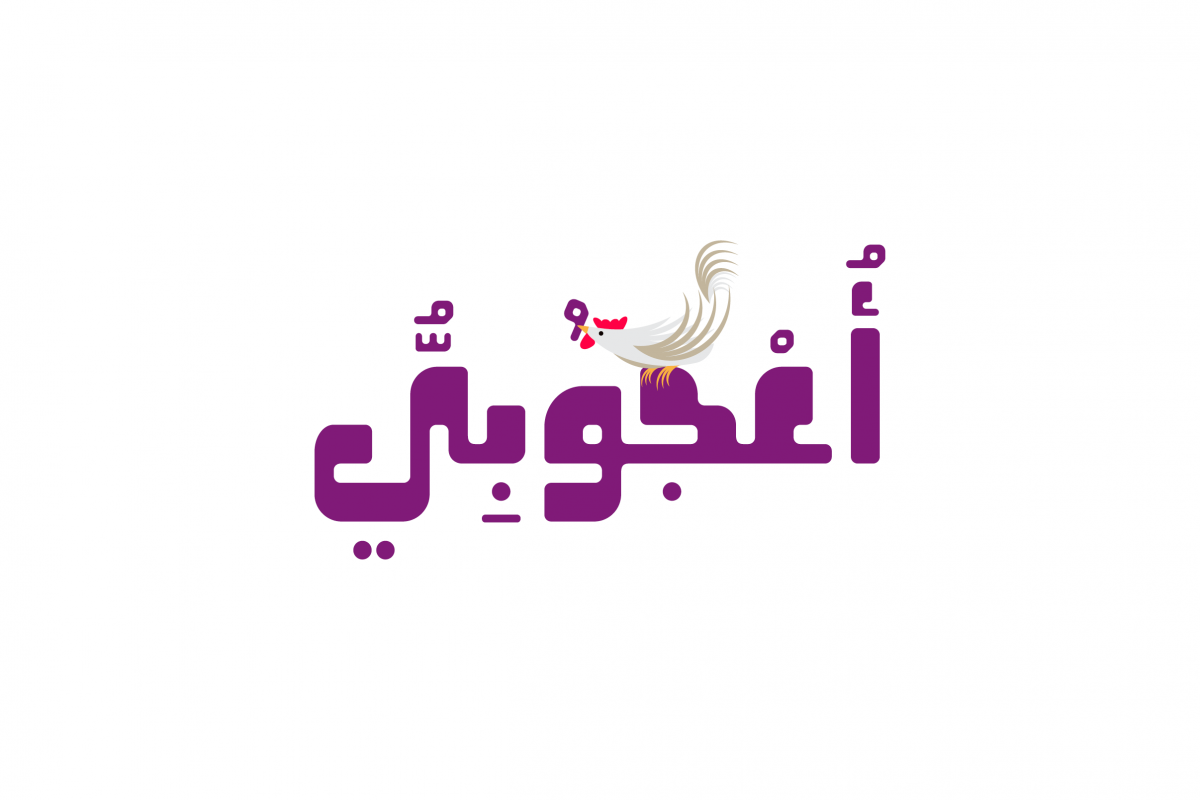
Oajoubi - Arabic Font
Oajoubi (the Arabic word for ‘Miraculous’) is an Arabic display font that features heavy geometric structure, smooth-rounded edges and stylistic sets. Oajoubi suits various range of creative projects including infographics, publication, web, advertising, packaging and brand identities. The font supports Windows, Mac and mobile applications.